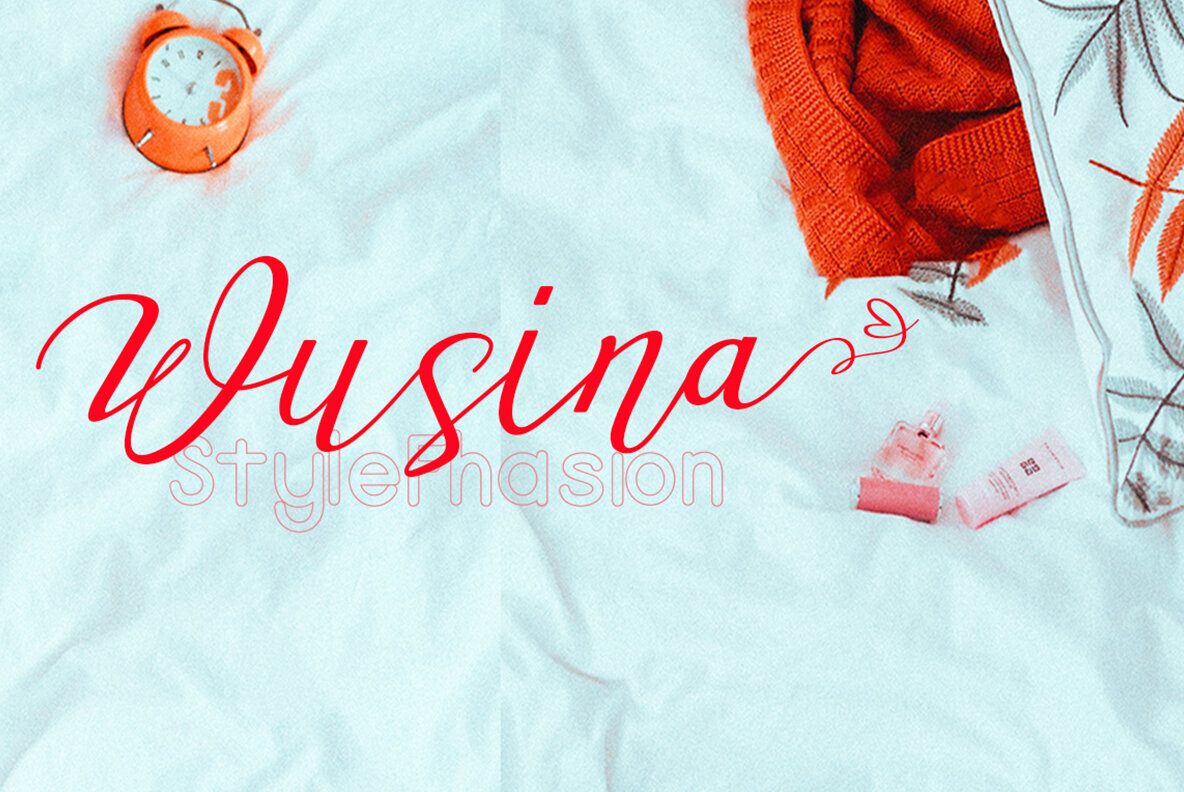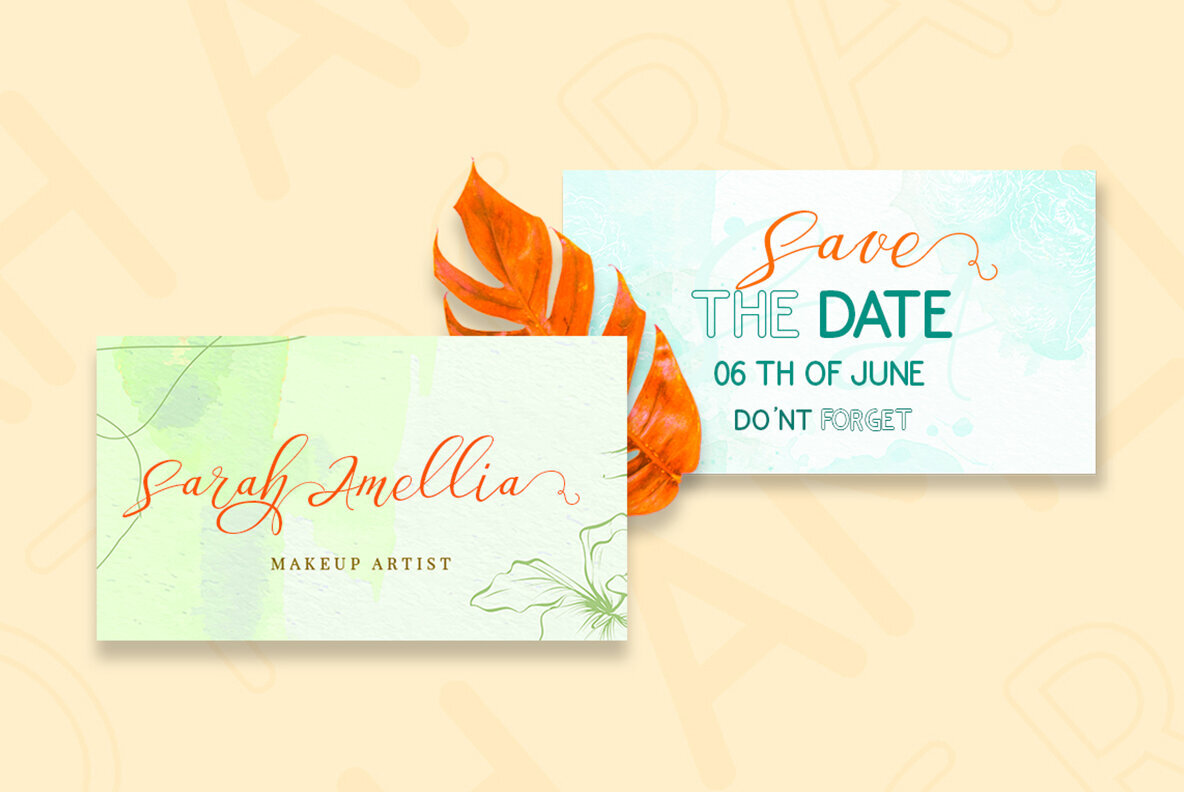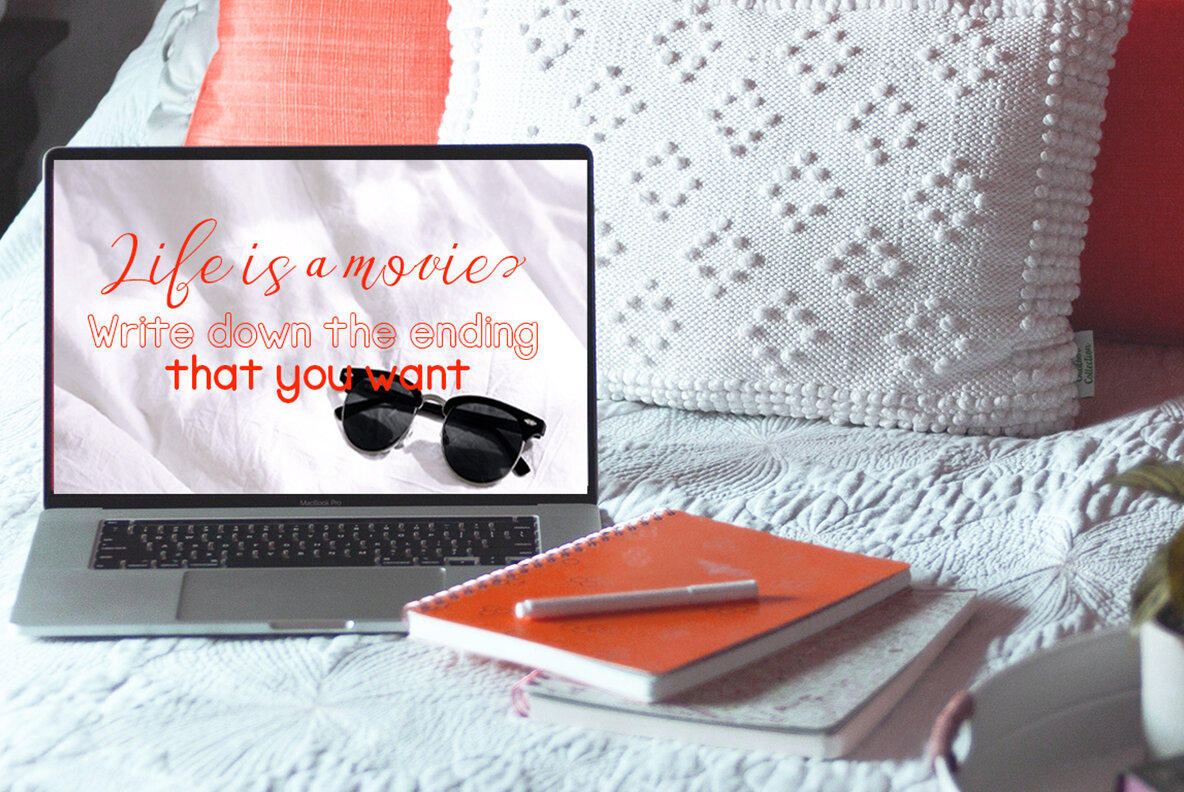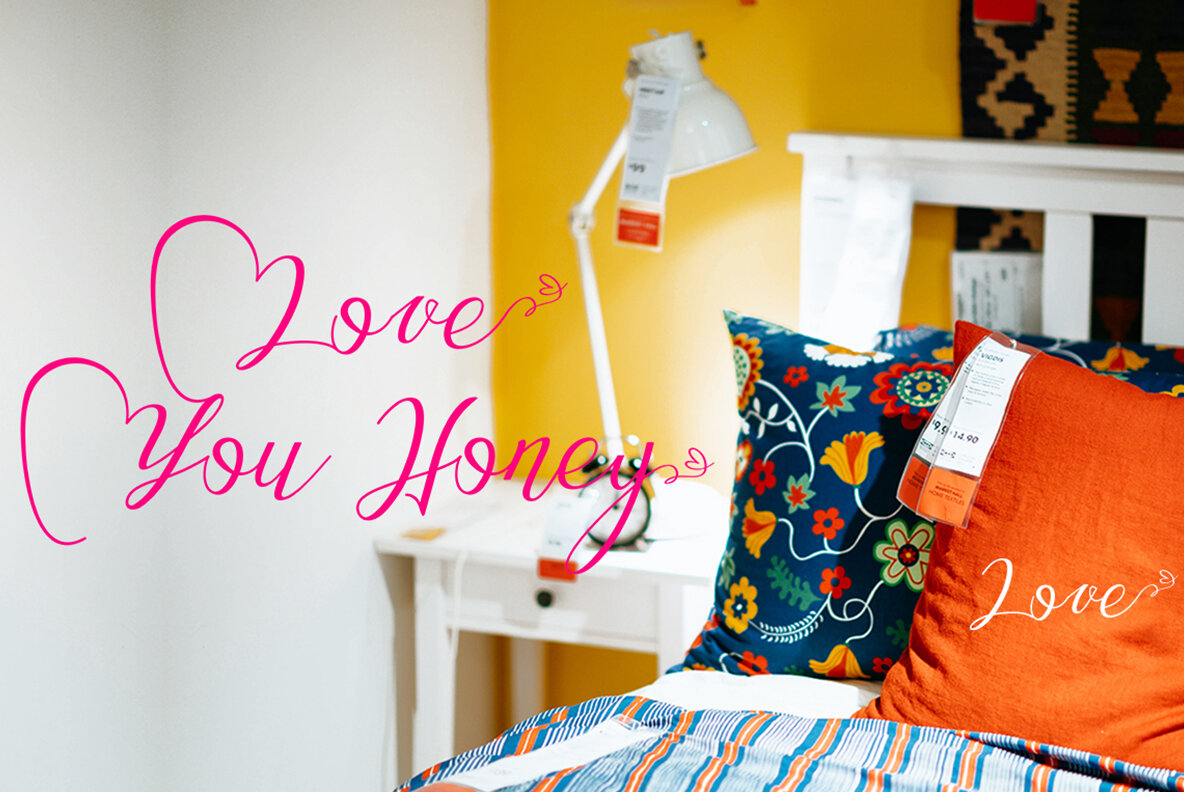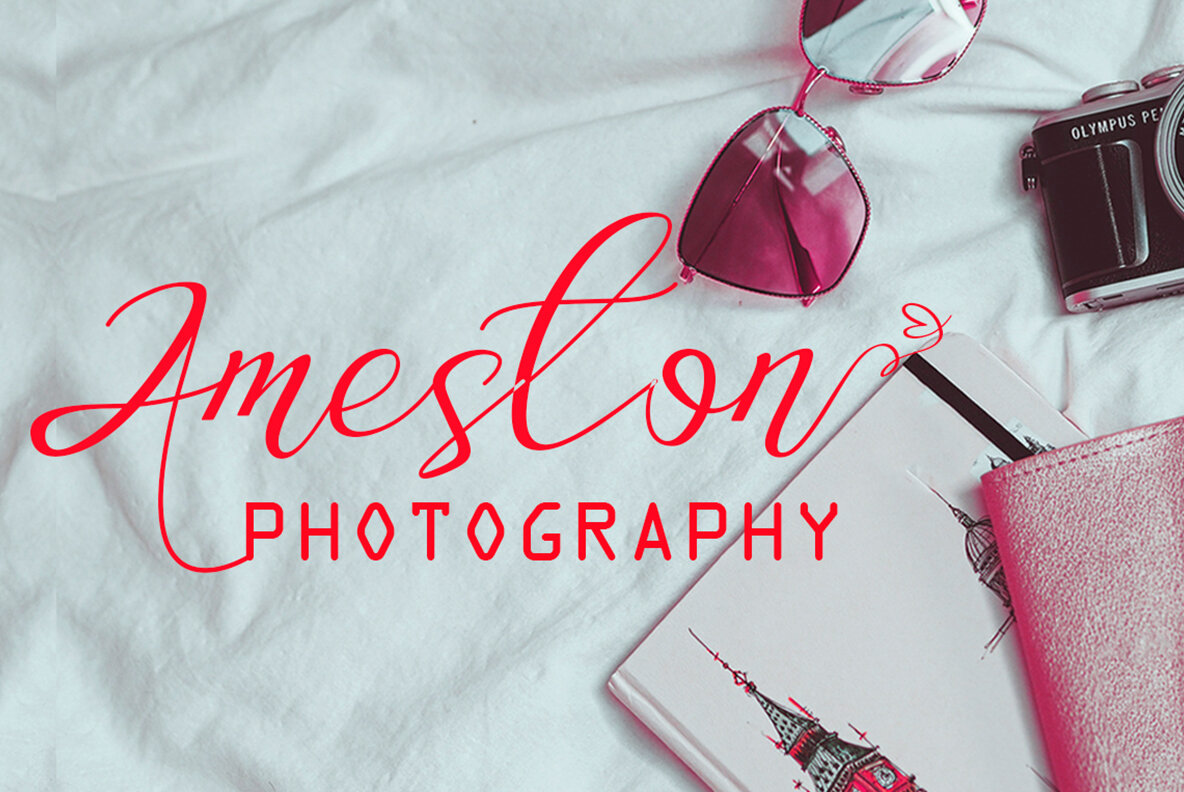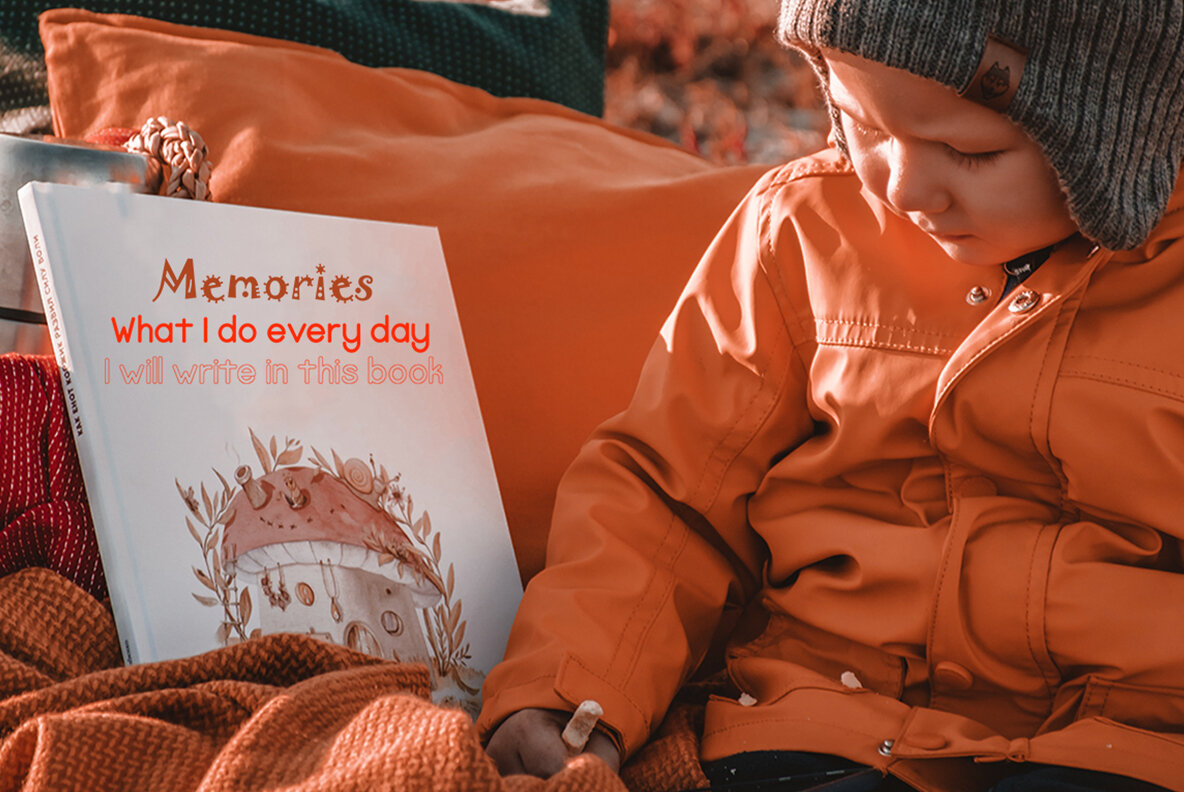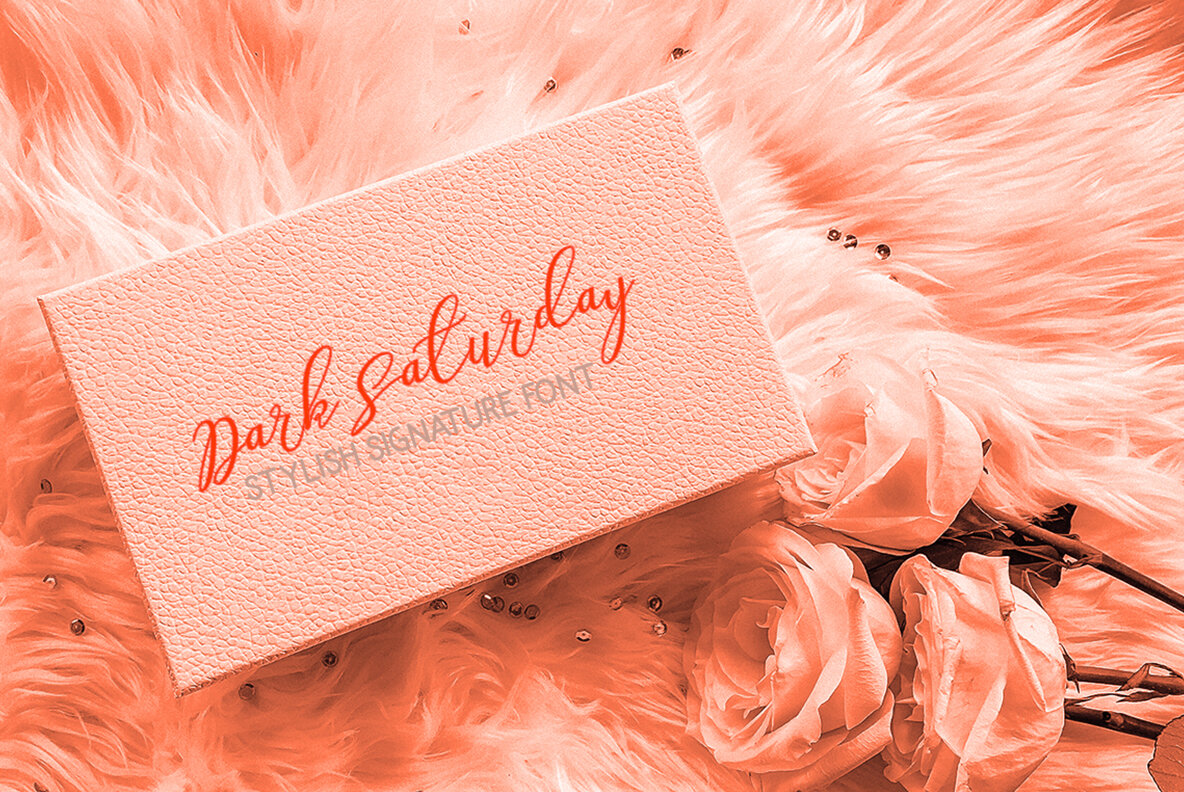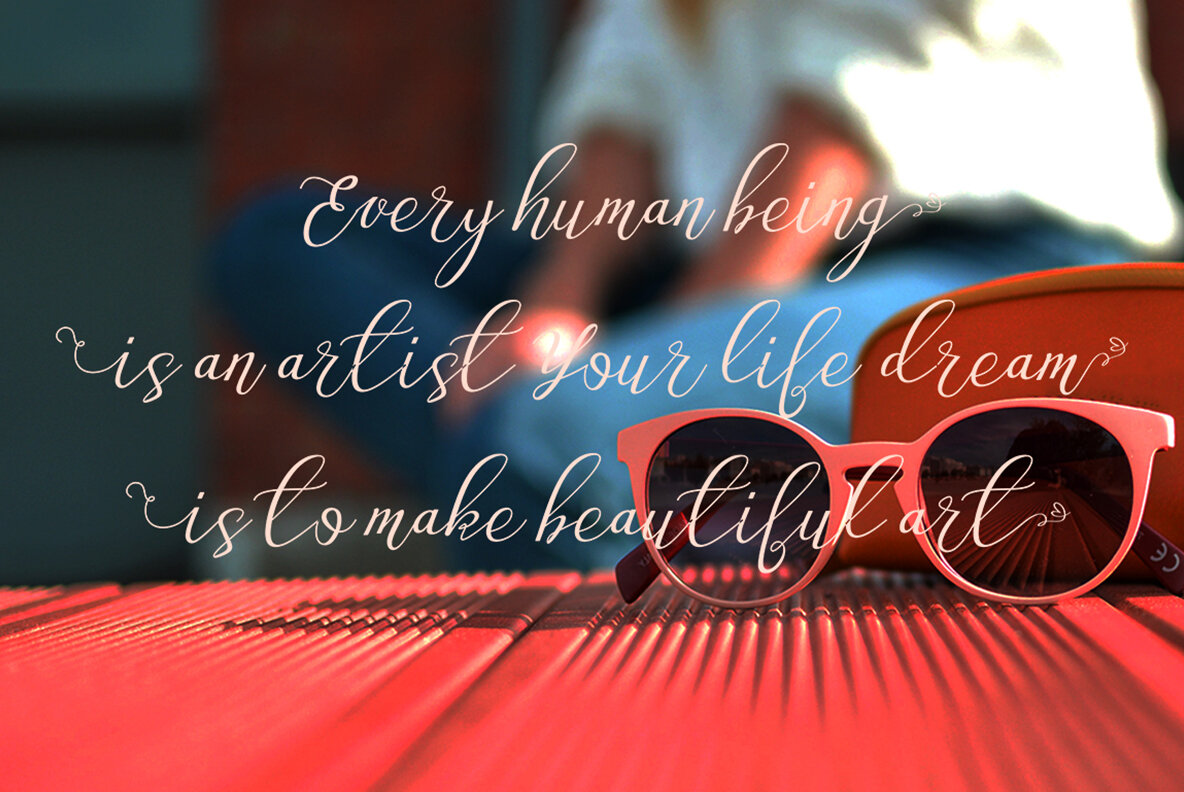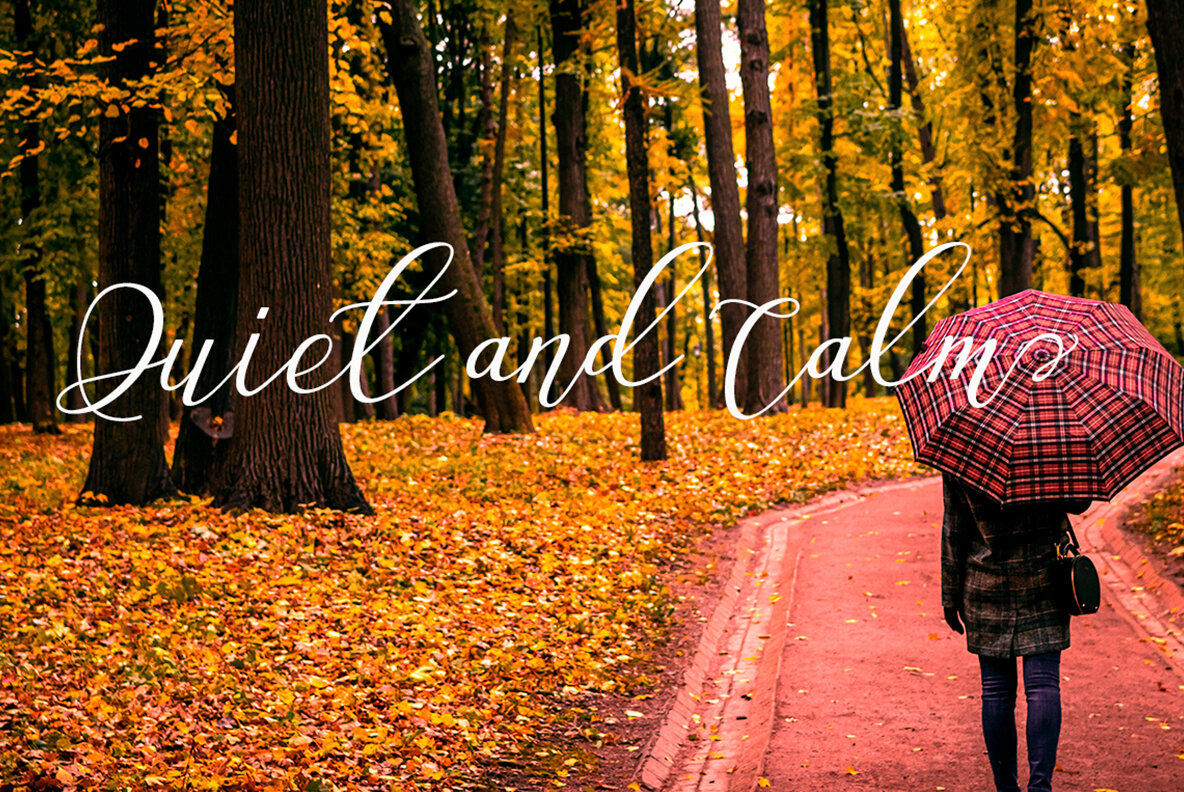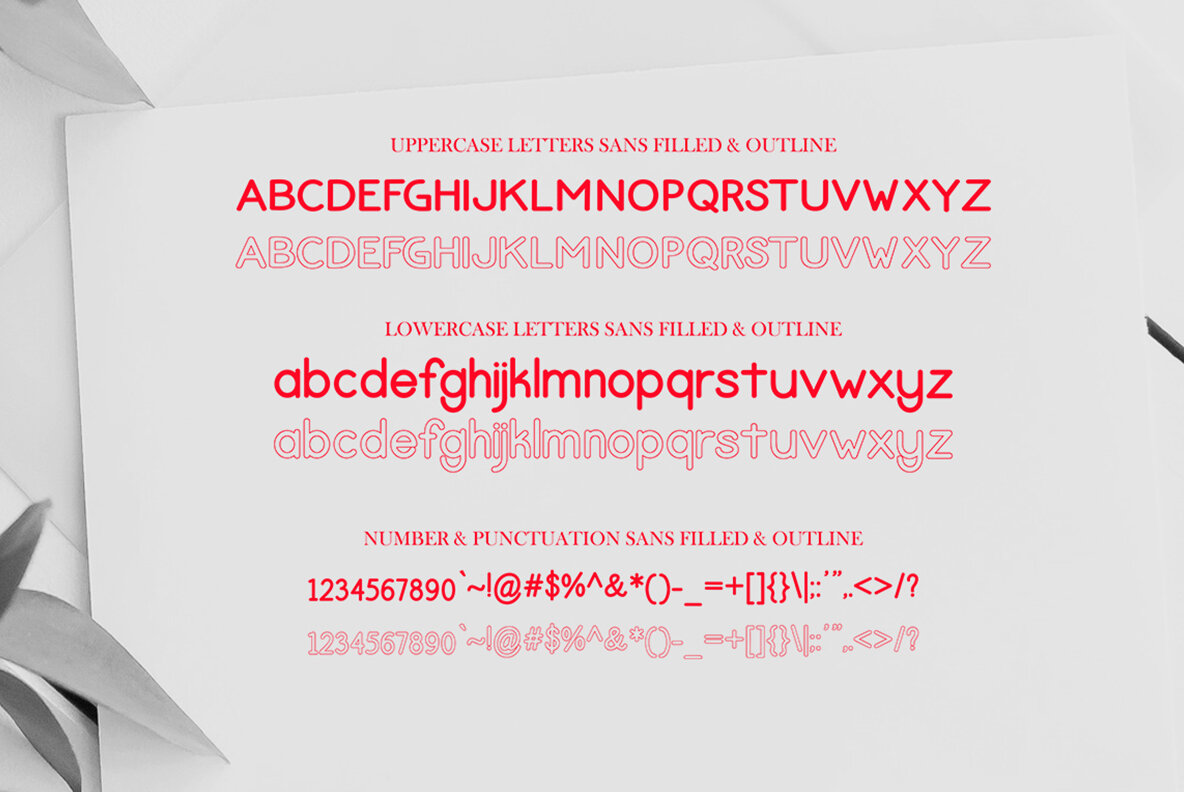
Ameston Font
Ameston is a versatile handwritten font, perfect for applications including branding, signatures, wedding invitations, promotions, and product packaging. Its style is a blend of modern simplicity and authentic charm. To utilize the OpenType Stylistic alternatives, ensure your software supports them. Compatible programs include Adobe Illustrator CS, Adobe InDesign, CorelDraw X6-X7, and Microsoft Word 2010 or later. With PUA Unicode encoding, Ameston offers seamless access to all additional characters without specialized design software. Mac users can explore these characters using Font Book, while Windows users can rely on Character Map to copy and paste characters into any text editor or application.Ameston: Organic Handwritten Font